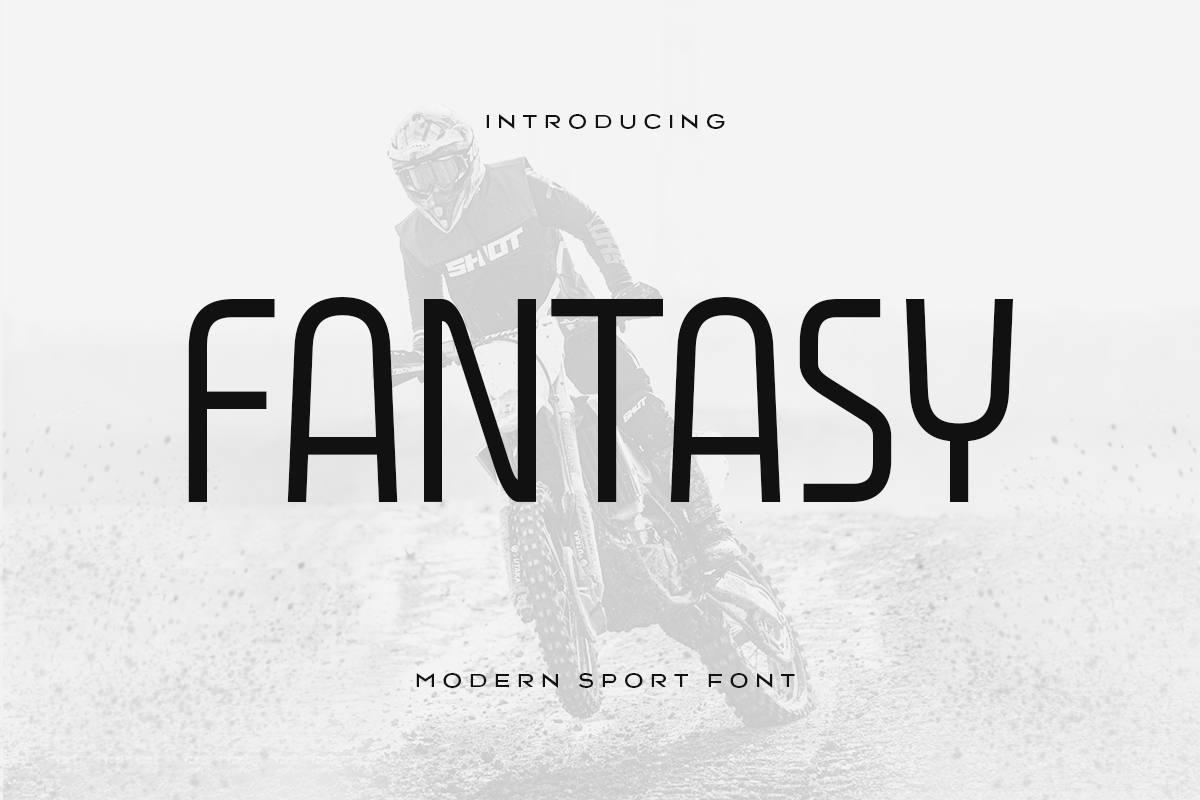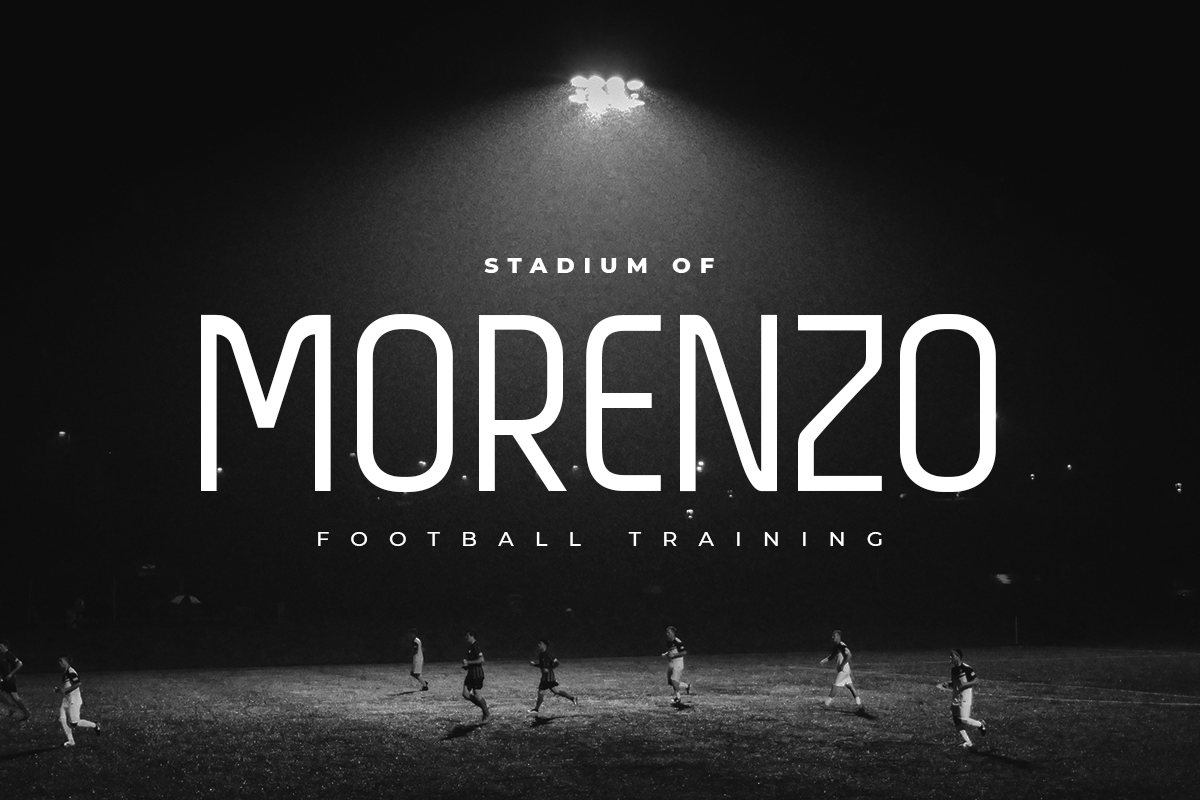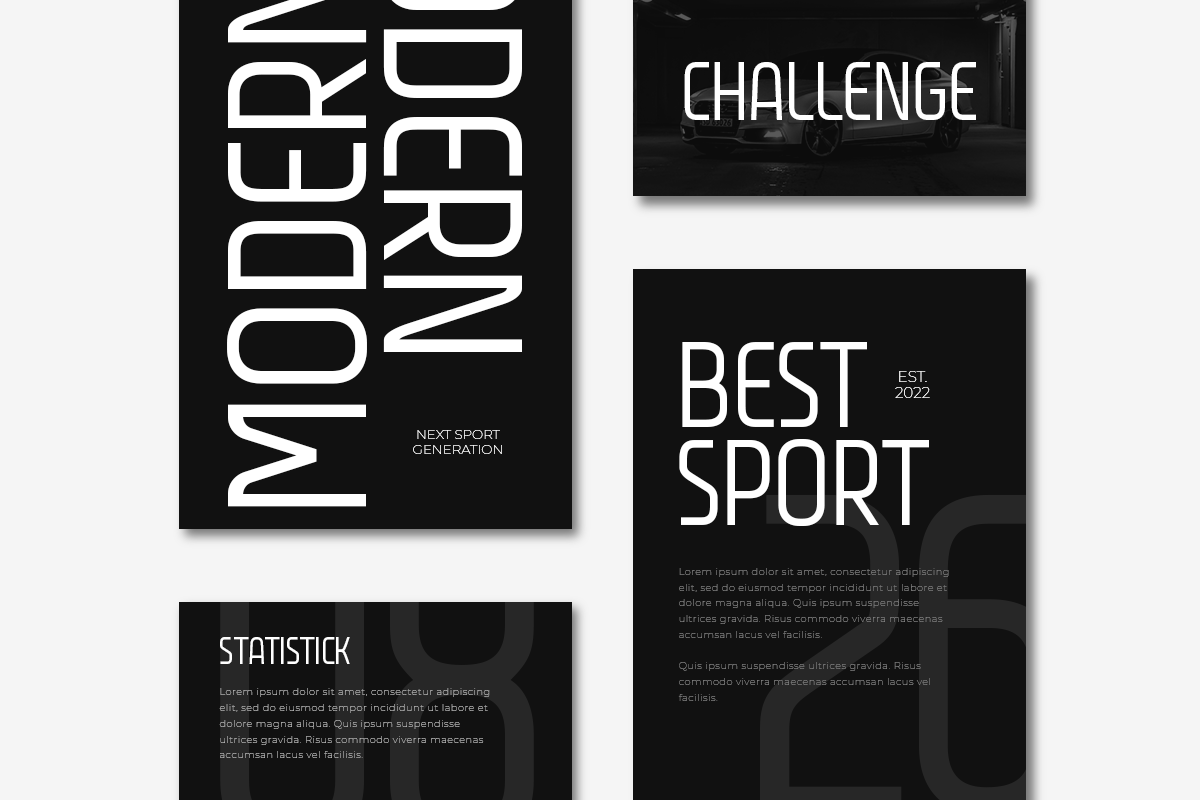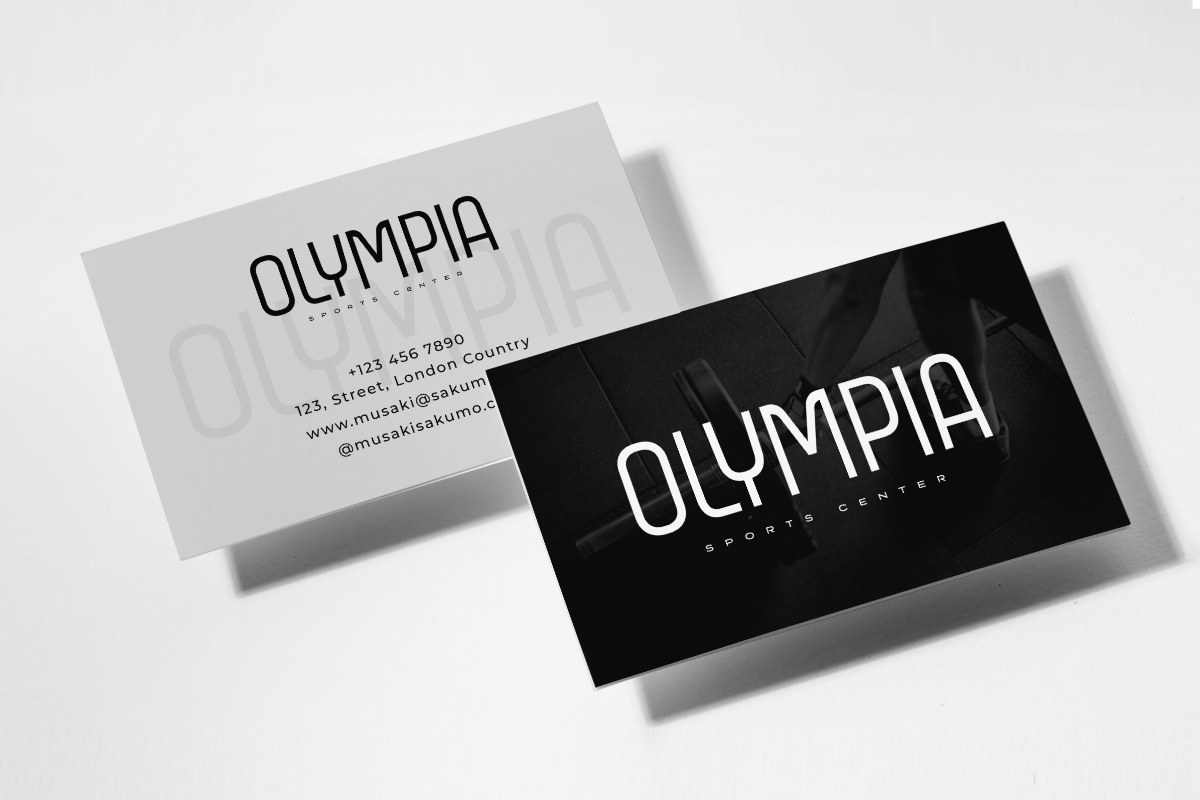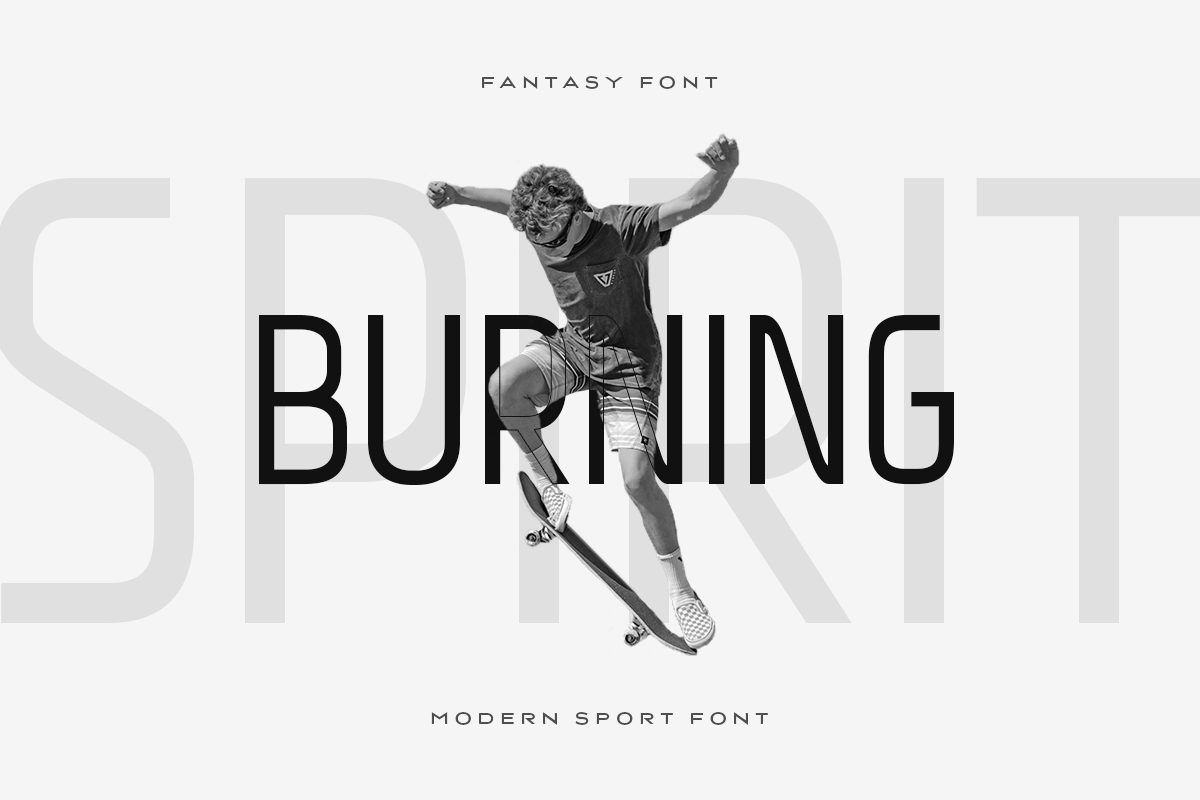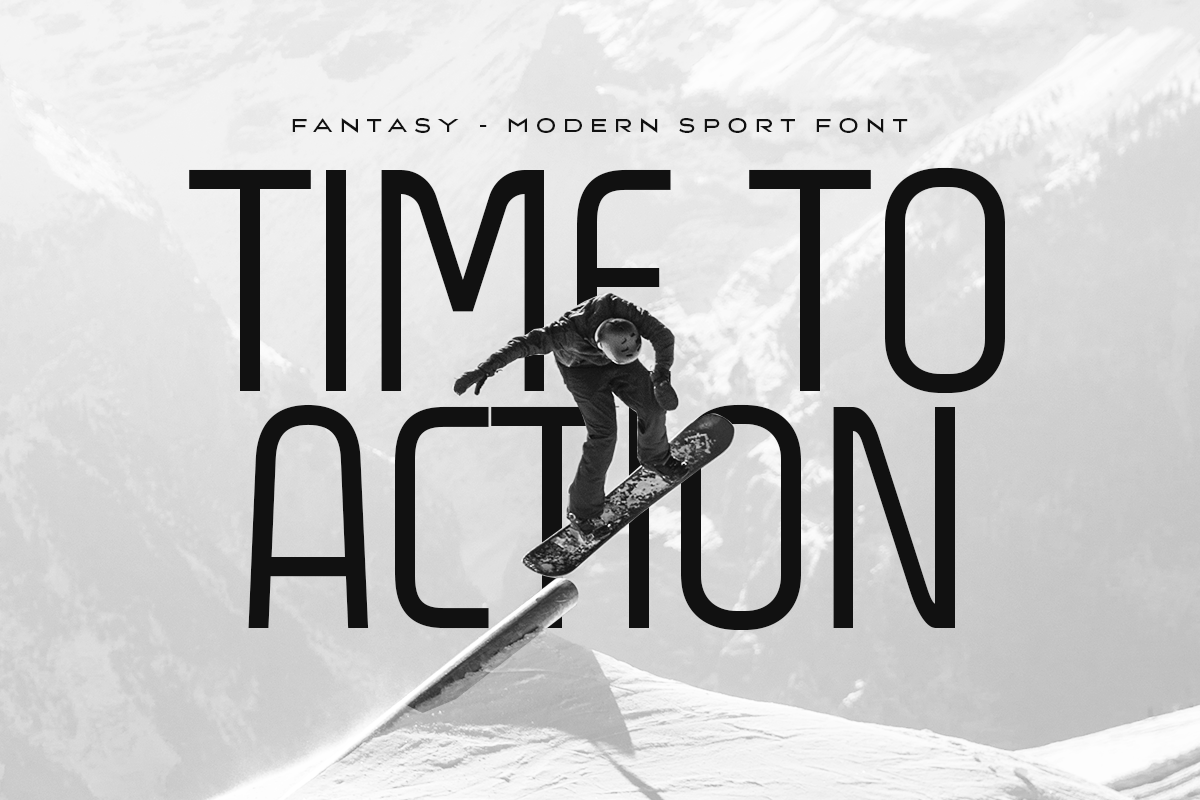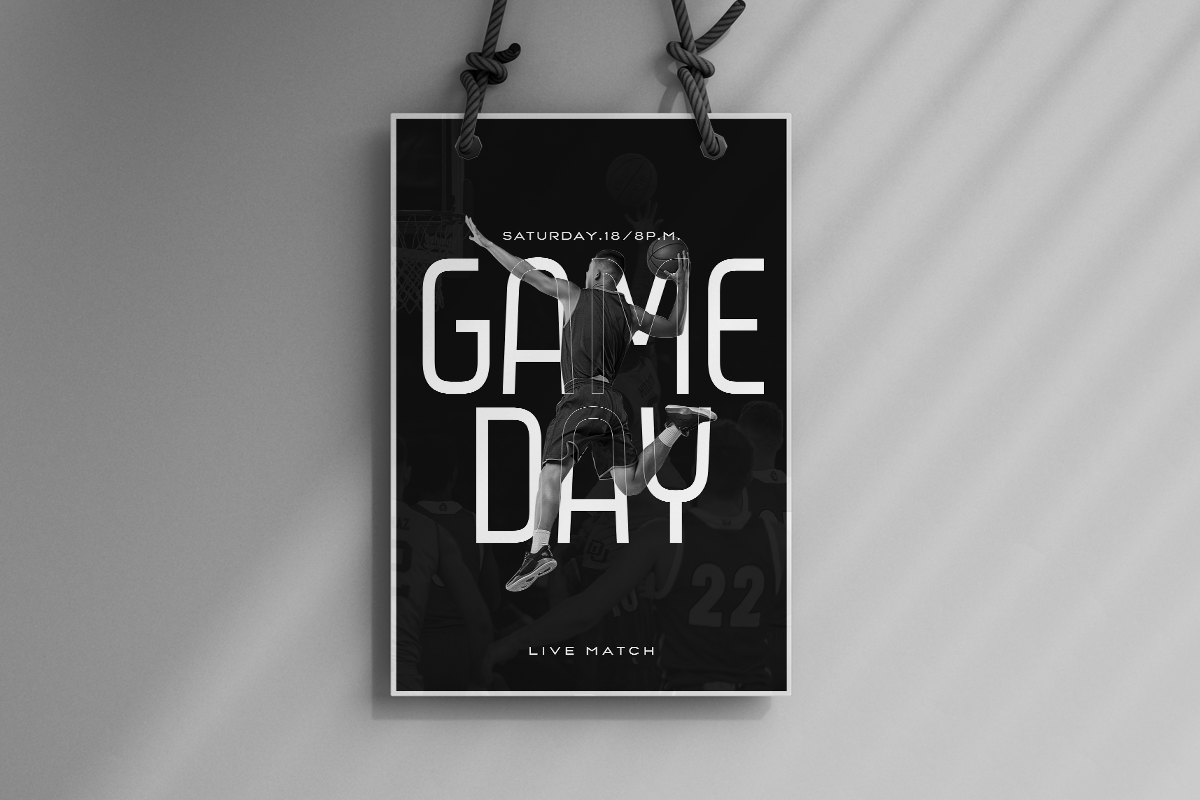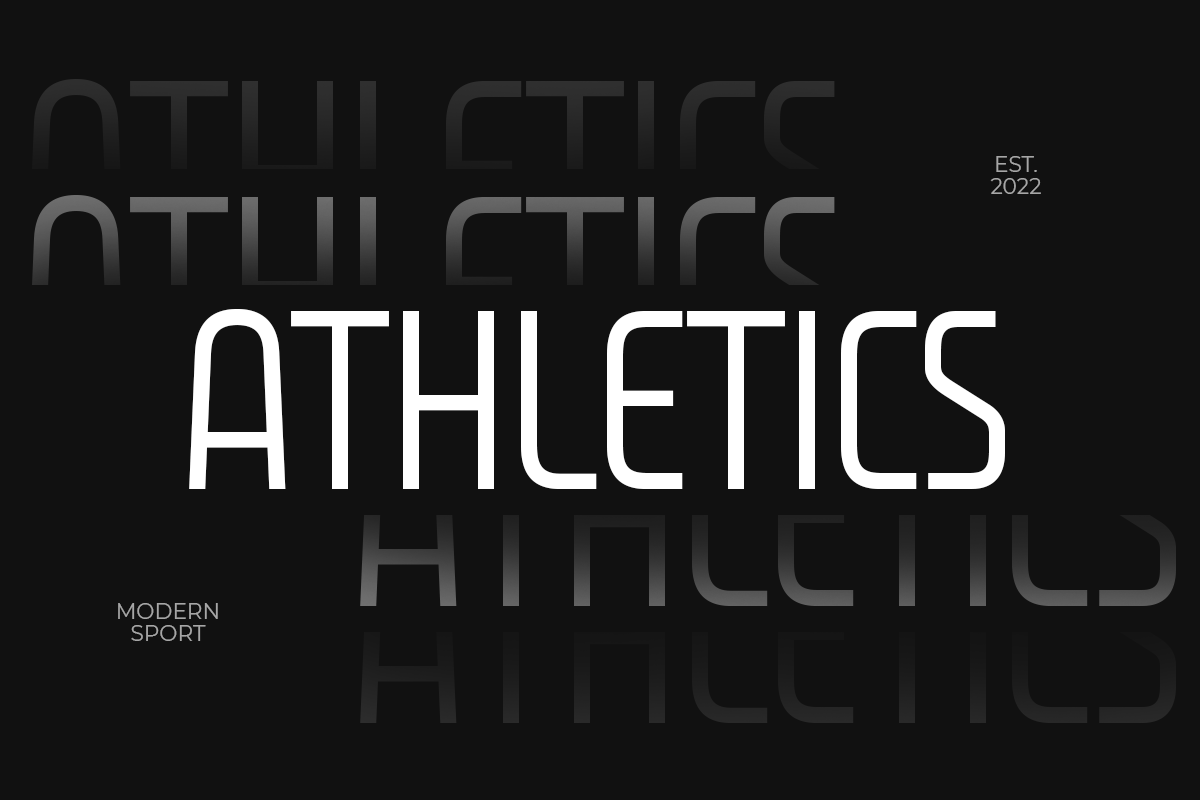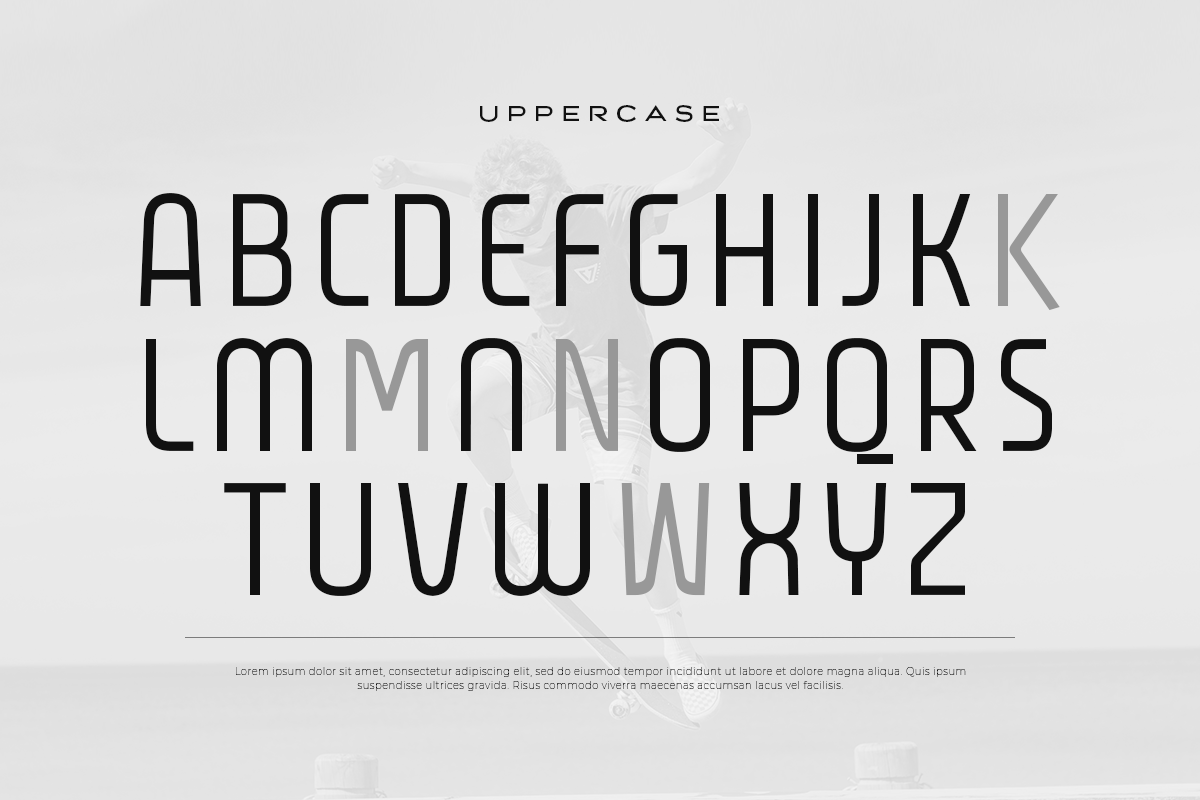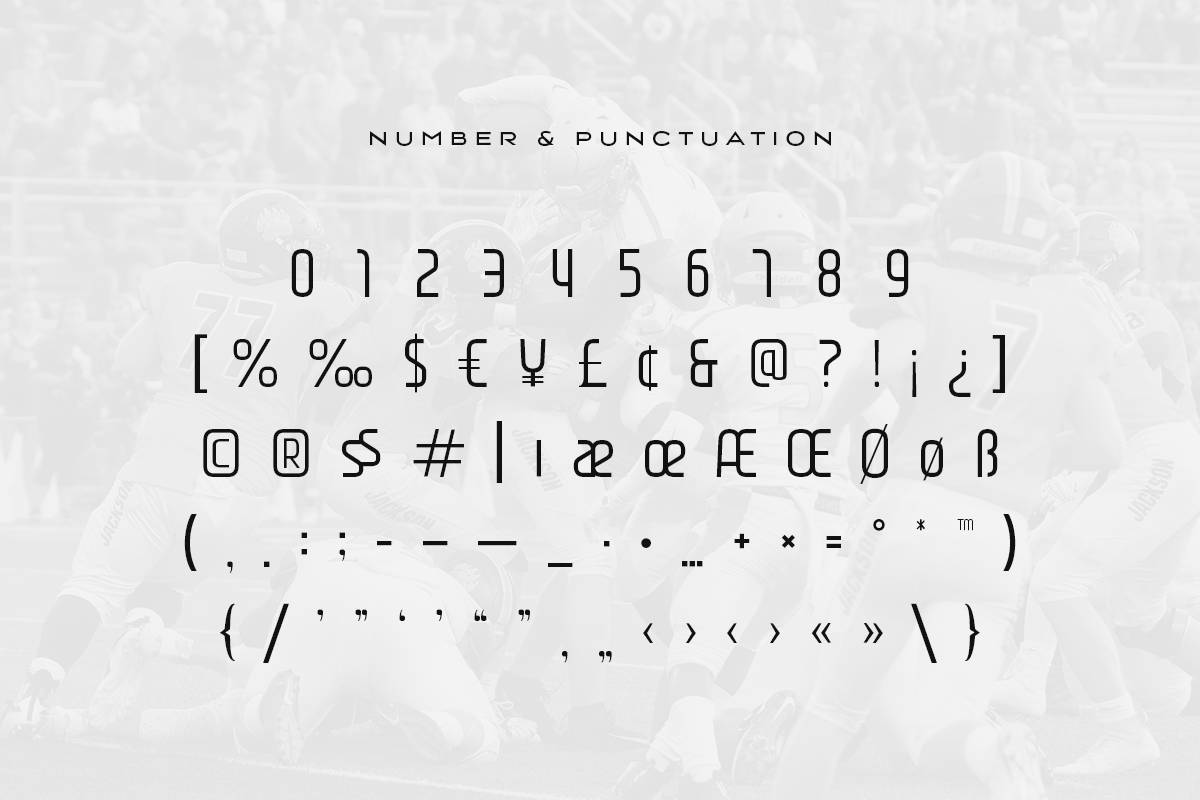
Fantasy – Modern Sport Font
A Modern Sport Font that perfect for technology, sport, racing, action design project.
A new Sans Serif Font that we created special for Headline, Title and more stand out typography needs that will add your variations. It’s so perfect to add your style and headline overview. And specially for Headline font, we crafted for futuristic style and modern feels so enjoy to create any project that will show your main idea out.
Fantasy Modern Sport Font ready with:
- Any options to get creative variations
- Preview as a inspirations that you can do with Fantasy font
- Ready with All Uppercase characters